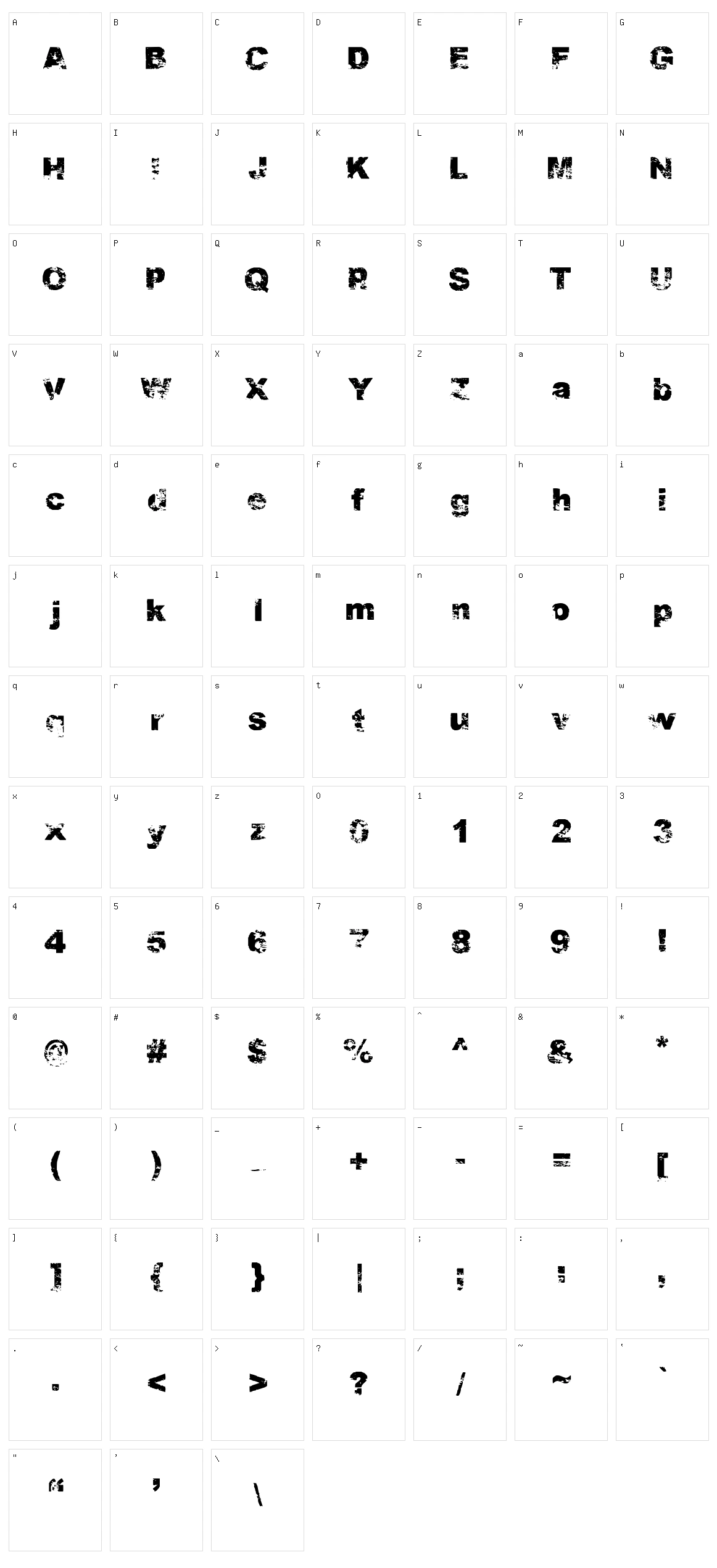
The free font PDRPT is carefully designed by Billy Argel Fonts ®, showcasing a thoughtful balance of creativity and usability and falls under the Destroy font style. When you download the ZIP file, it contains only 170.08 KB of font files, making it lightweight and quick to download. Please review the license details below to understand permitted usage and distribution rights. If license information is not available, we recommend using this font for personal projects only or contacting the author directly for commercial usage permissions.
PDRPT font